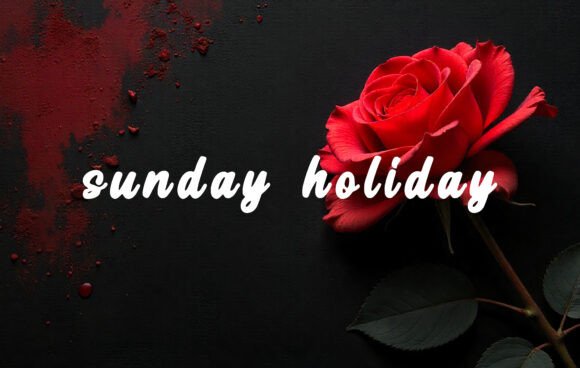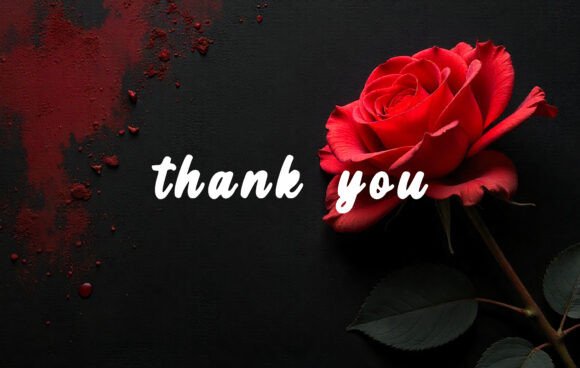
Introduction to Passion Font Font
Fonts play a crucial role in design, and the Passion Font font is a typeface that brings both character and versatility to any project. Whether you’re working on a branding project, a website, or a print design, the Passion Font font offers a unique style that can elevate your work.
Passion is an intense, bold, and expressive handwritten script font that conveys strong emotion and charisma.
Its thick, smooth strokes and slightly bouncing baseline give it a high-impact, authentic hand-lettered quality This typeface is perfect for dramatic photography watermarks, romantic event posters, custom apparel, and any project that needs a strong, heartfelt, and dynamic signature style.
Key Features of Passion Font Font
Why Choose Passion Font Font?
The Passion Font font is more than just a typeface – it’s a design tool that helps you communicate your message with style and clarity. Its unique character set and versatile design make it suitable for a wide range of applications, from elegant invitations to bold headlines.
With its carefully crafted letterforms and balanced proportions, the Passion Font font ensures readability and visual appeal across all mediums.
What makes Passion Font font special?
The Passion Font font stands out with its unique design, exceptional readability, and versatility across various design applications.